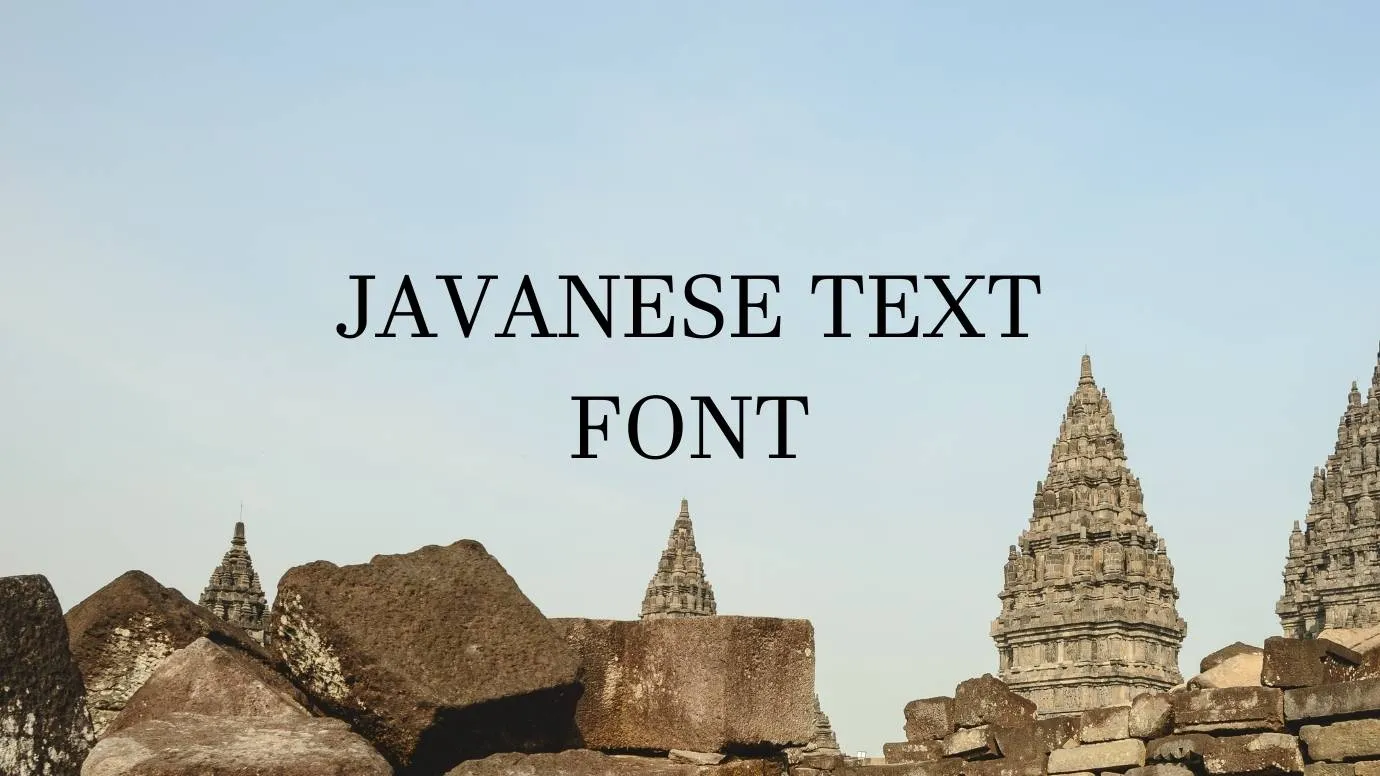
Javanese Text Font Family is an exceptional serif font and it was crafted and distributed in 2019 by John Hudson. This particular typeface is a commission by Microsoft, with the company holding all rights to it.
This font family offers several quirky glyphs along with interesting characters including all case letterings, numerals, punctuation marks, currency symbols, updated icons, and plenty of more special characters that provide visual effects to the eyes when used with Fallout font.
NameJavanese Text Font
DesignerJohn Hudson
StyleSerif
Date Released2019